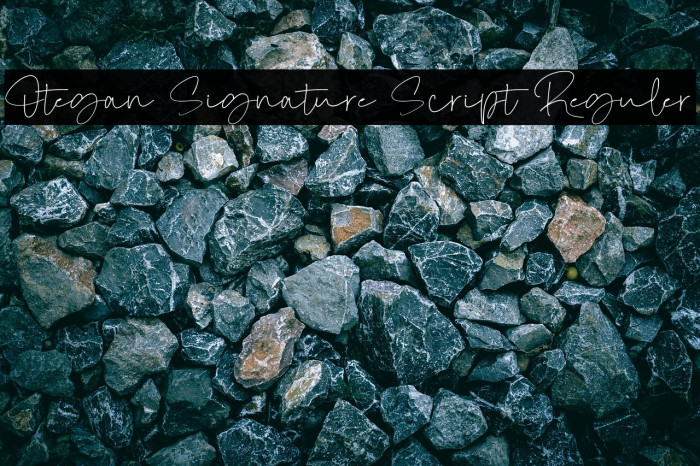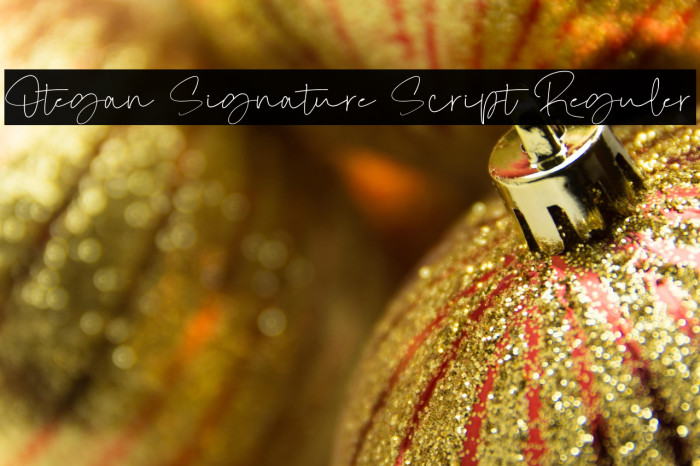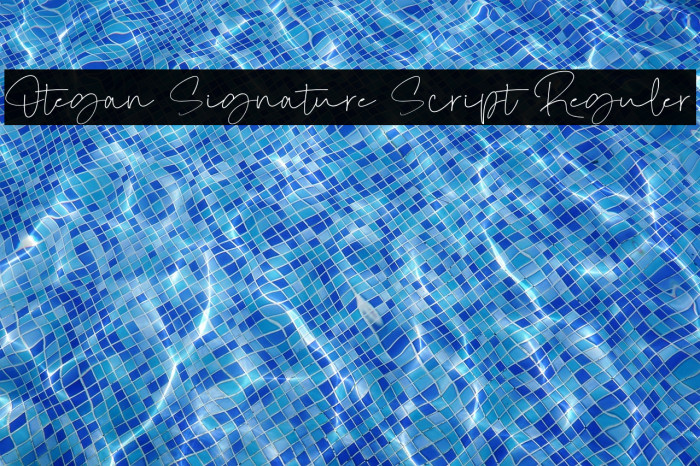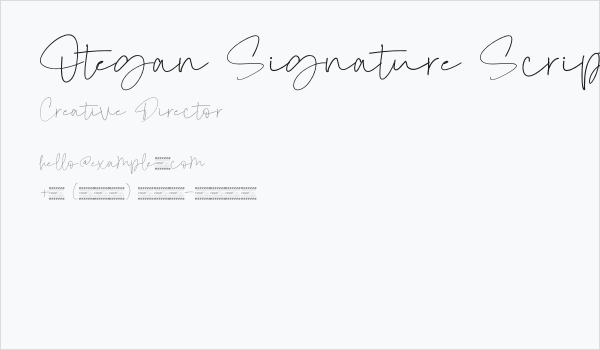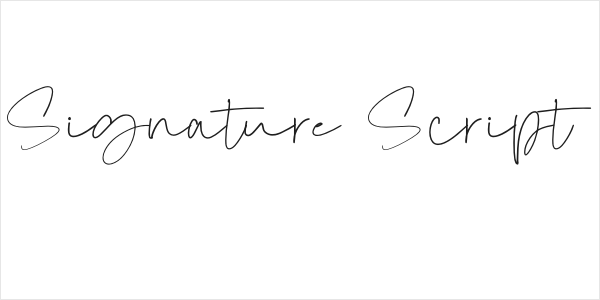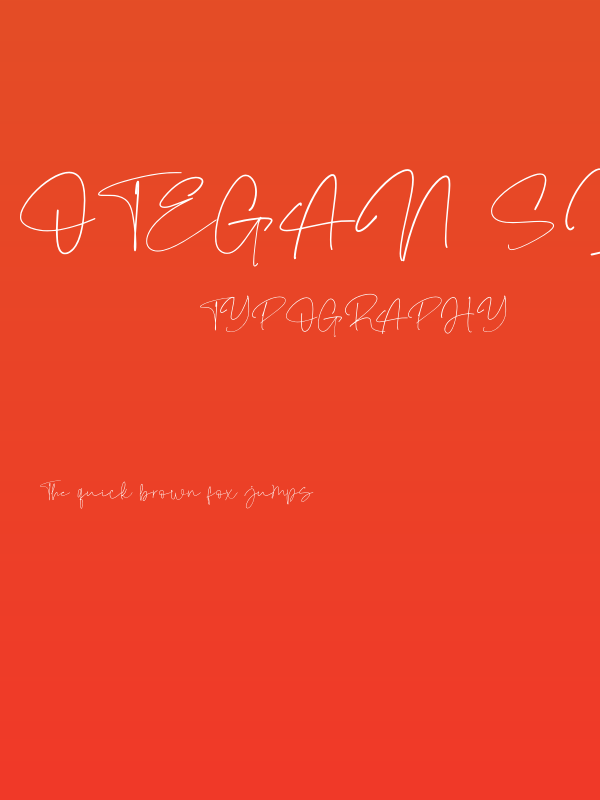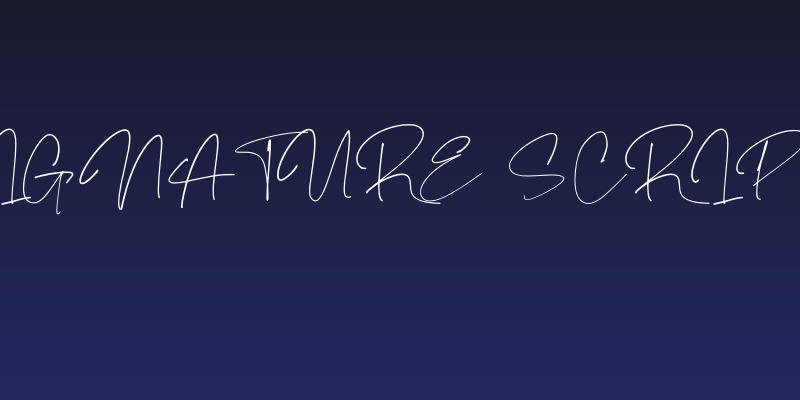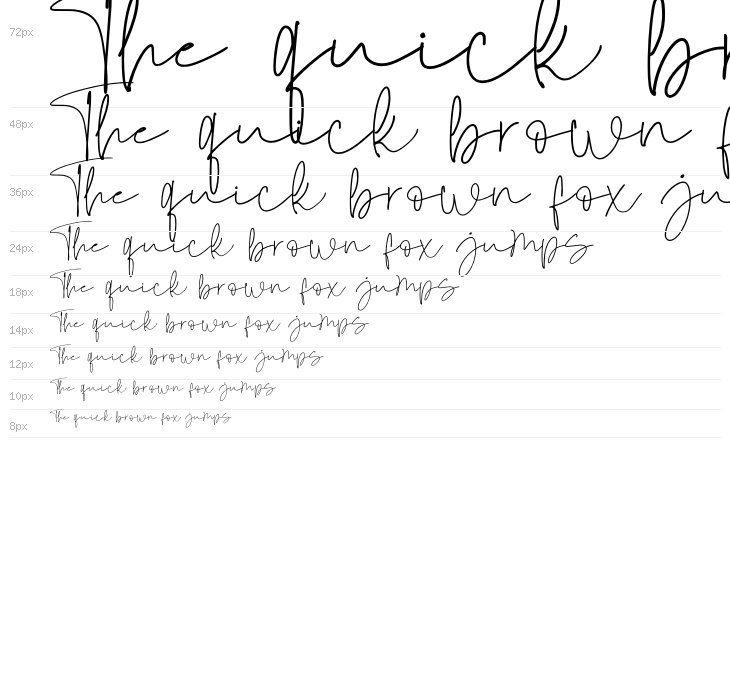
Otegan Signature Script Reguler Font
Otegan Signature Script Reguler Description
This font exudes a sophisticated and elegant style, characterized by its fluid, cursive script that mimics natural handwriting. The letters are interconnected with smooth, flowing lines, giving it a seamless and continuous appearance. The uppercase letters are slightly larger and more elaborate, while the lowercase letters maintain a consistent, graceful form. The font's delicate strokes and subtle curves create a sense of refinement and charm. It is well-suited for projects that require a personal touch, such as invitations, greeting cards, and branding materials. The overall aesthetic is both modern and timeless, making it versatile for various design applications.
| Overall Style | Elegant, Modern |
| Proposed Projects | Ideal for wedding invitations, personal branding, greeting cards, and elegant logos. |